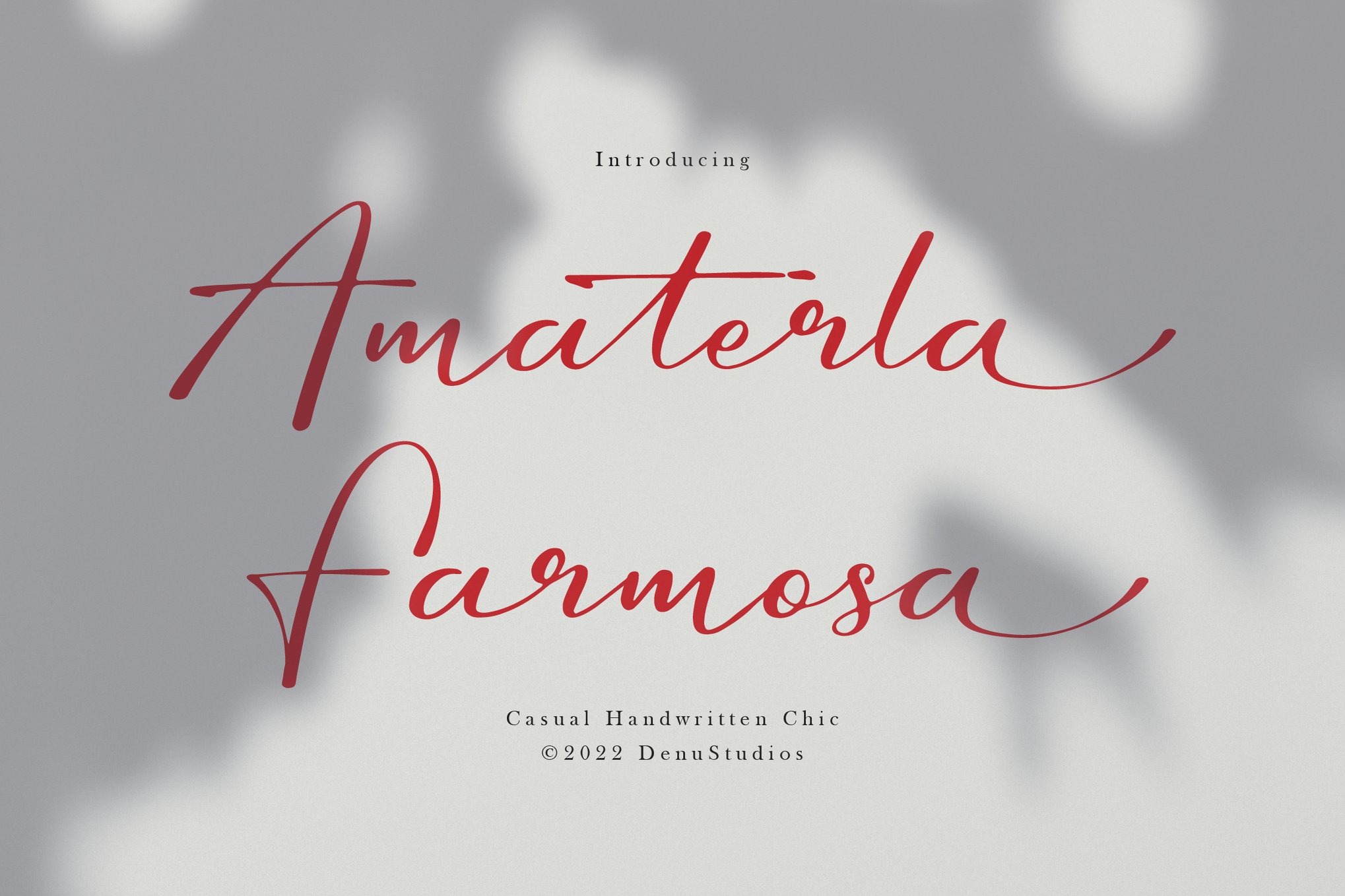
Amaterla Farmosa – Modern Script Font
Amaterla Farmosa – Modern Script Font is a clean and thoughtfully built typeface that works seamlessly for both professional branding and everyday creative uses. The Amaterla Farmosa font is designed to deliver a strong, versatile visual character, balancing aesthetics and readability. Every detail is carefully crafted to ensure a clear, consistent, and visually appealing result across a wide range of design needs. With well-structured letter proportions and support for features such as alternate characters and ligatures, this font allows for greater creative exploration. The final result is dynamic, distinctive, and professional, making it adaptable to a range of design styles.